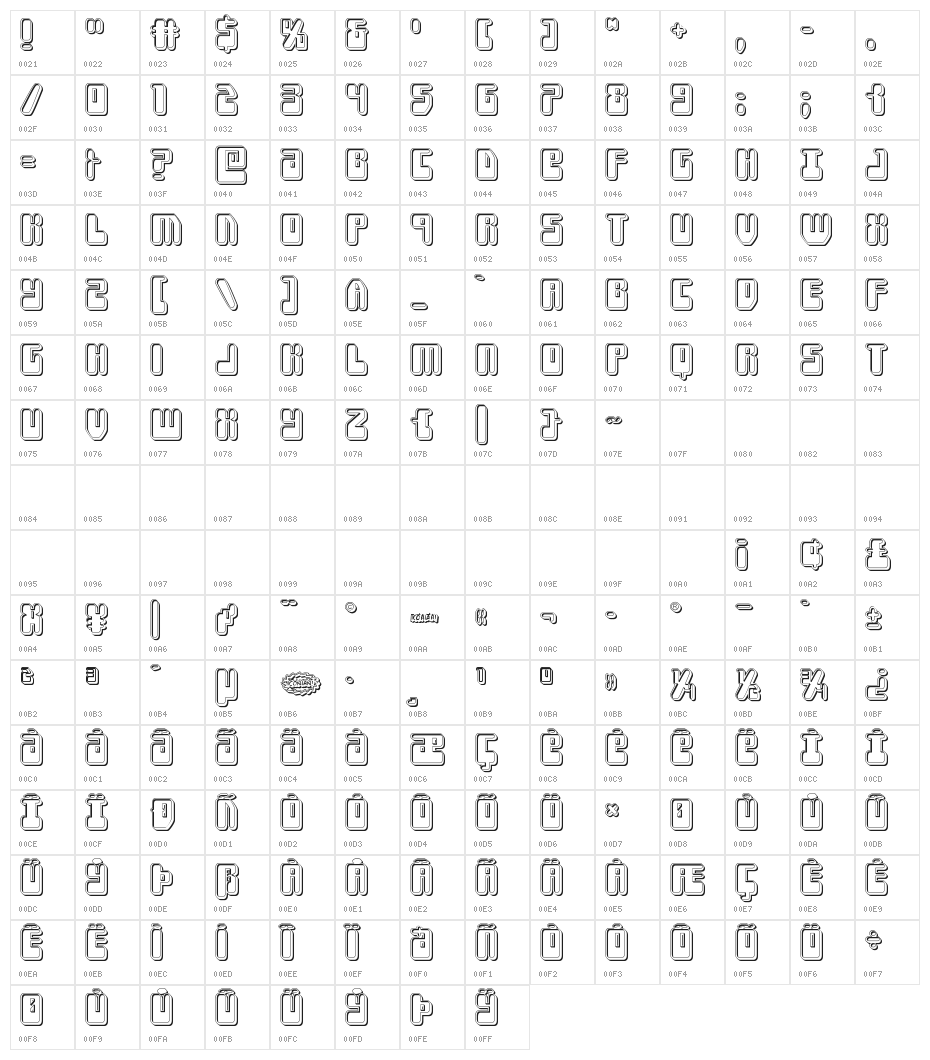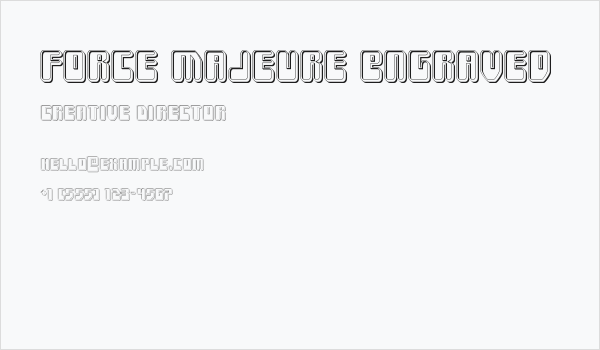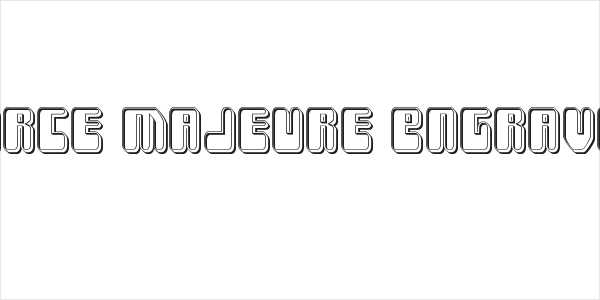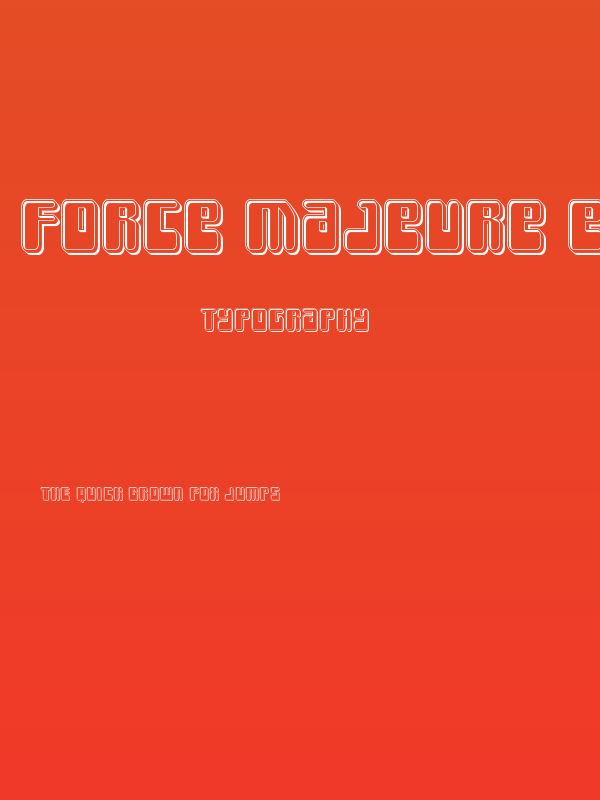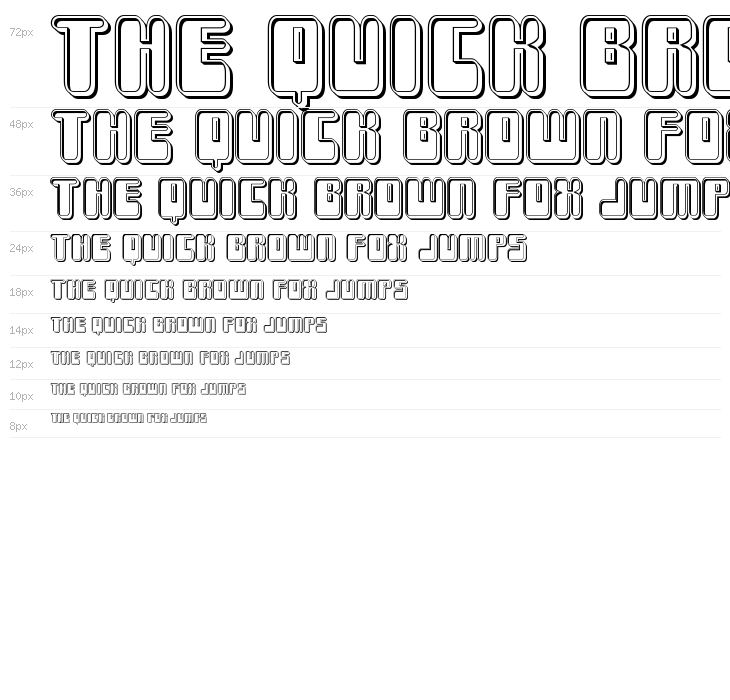
Force Majeure Engraved Font
Force Majeure Engraved Description
This font features a bold, engraved style with a three-dimensional effect created by its double-line structure. Each character is outlined with a thick border, giving it a strong, impactful appearance. The geometric shapes and uniformity across letters and numbers contribute to a modern, futuristic feel. The uppercase and lowercase letters maintain a consistent height, enhancing readability while adding a unique aesthetic. The numbers and special characters follow the same design principles, ensuring a cohesive look throughout. This font is ideal for projects that require a standout, decorative typeface.
| Proposed Projects | Ideal for branding, posters, headlines, and any design needing a bold, decorative touch. |